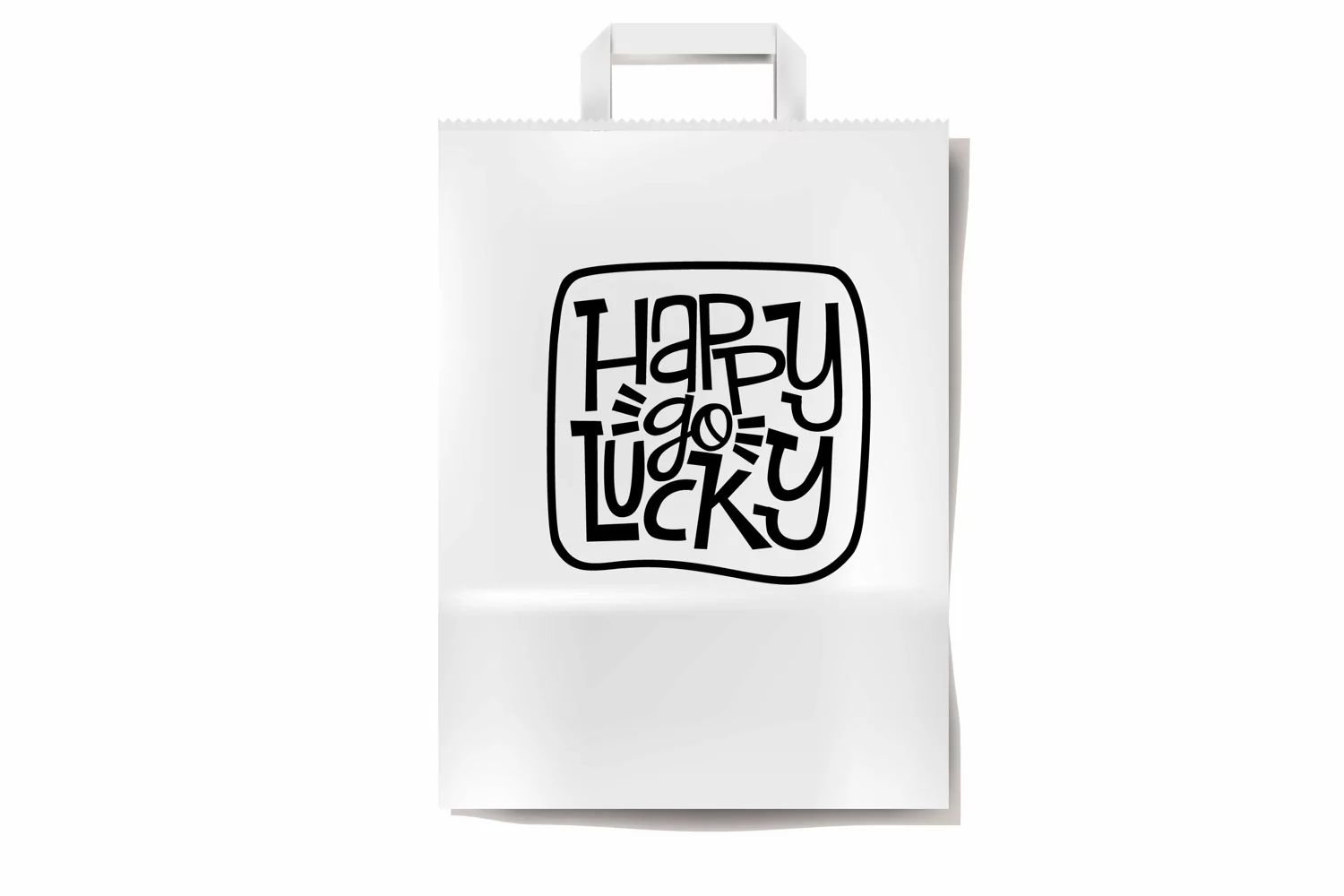
Lucky Sunshine
There are two dingbat fonts in this bundle. One is a traditional, black and white dingbat of cute Irish-themed objects, lucky objects, and happiness and the second is a full-color SVG dingbat of the same things. Perfect for vinyl and cutting machines!